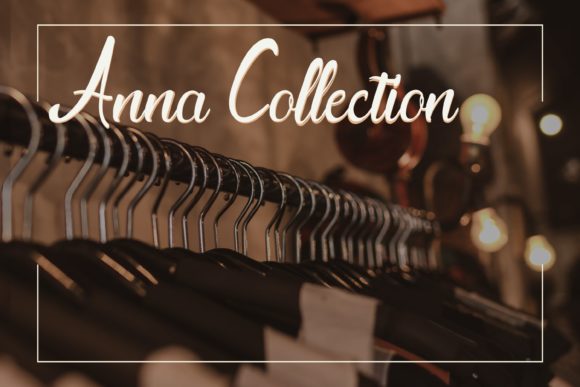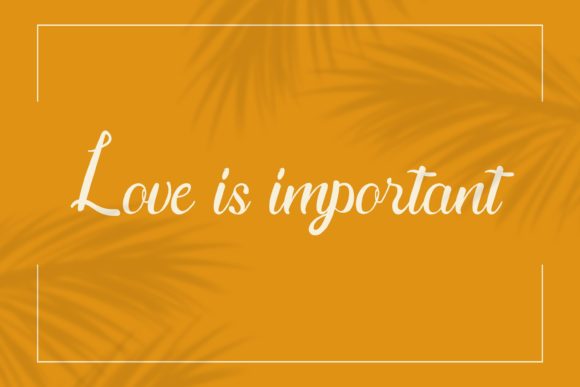
Marslovers Font
db-ku.com - Script & Handwritten -- Marslovers is a beautiful and unique script font, inspired by hand strokes with feelings of love. It is suitable for any projects such as: logos, branding projects, label, photography, watermark, special events, and all your other lovely projects that need a beautiful script taste. This font is PUA encoded which means you can access all of the glyphs and swashes with ease!